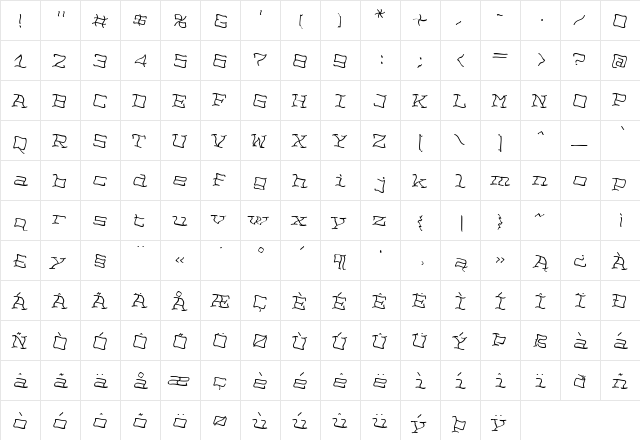
NoPainRight Regular
Design Context for NoPainRight Typeface
NoPainRight is a composed and adaptable typeface that performs quietly and consistently across a wide range of design contexts.